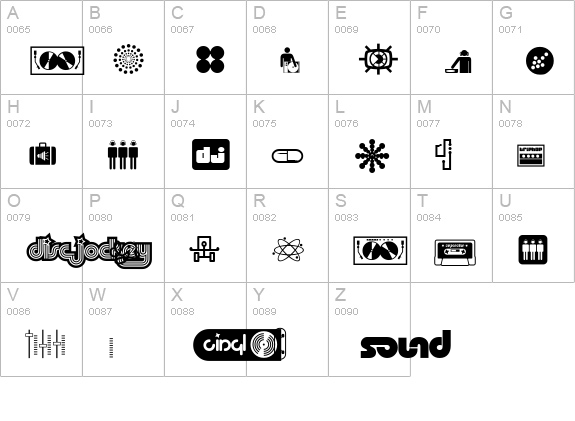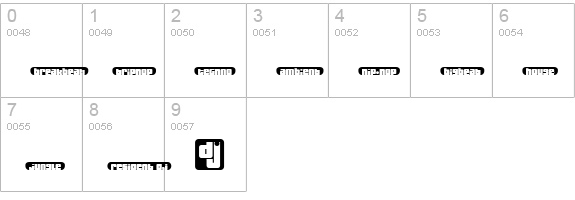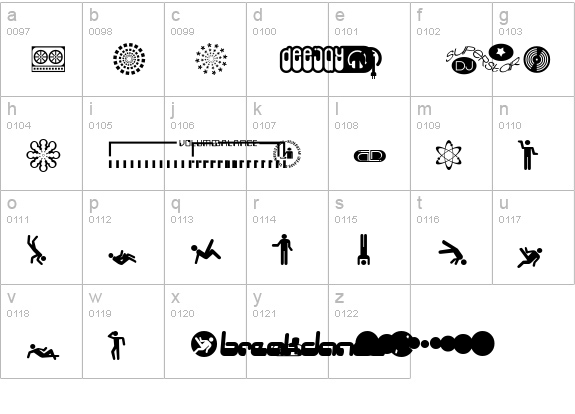
Superstar DJ font is a dynamic and eye-catching typeface that exudes energy and rhythm, perfect for capturing the essence of the music industry. With its bold and modern design, this font is sure to make a statement in any project or design. The Superstar DJ font is available for free download at FontsMarket.com, allowing you to add a touch of glamour and style to your creations without breaking the bank. Embrace the creativity and versatility of this font to elevate your designs to superstar status.